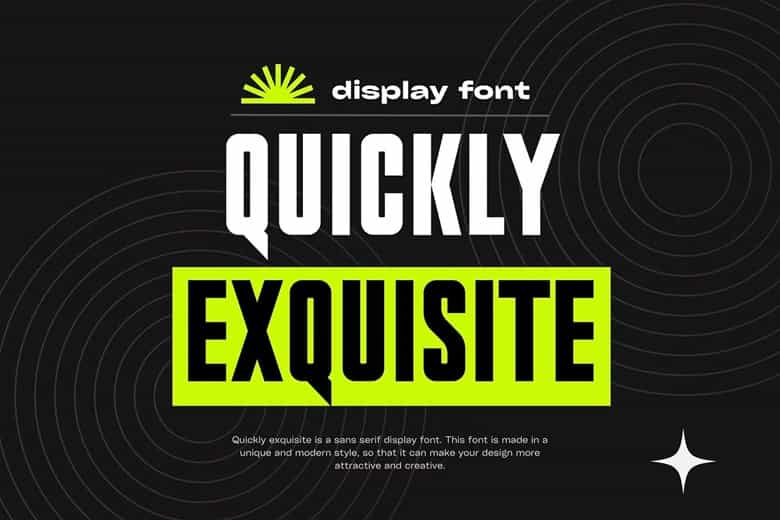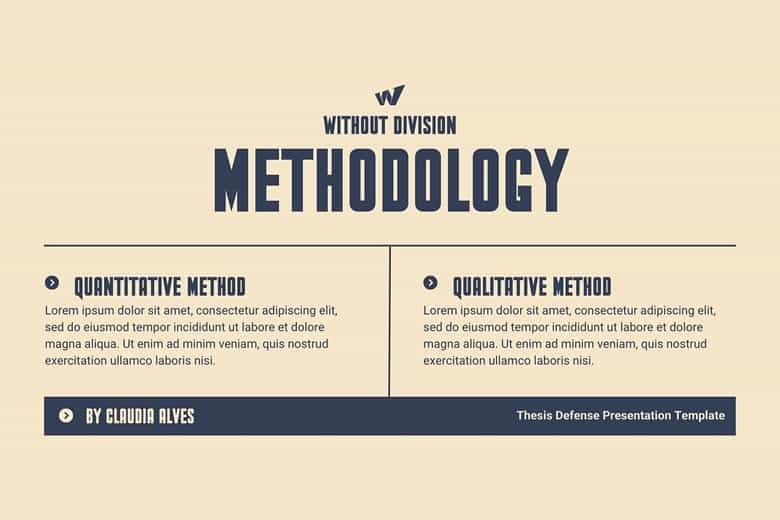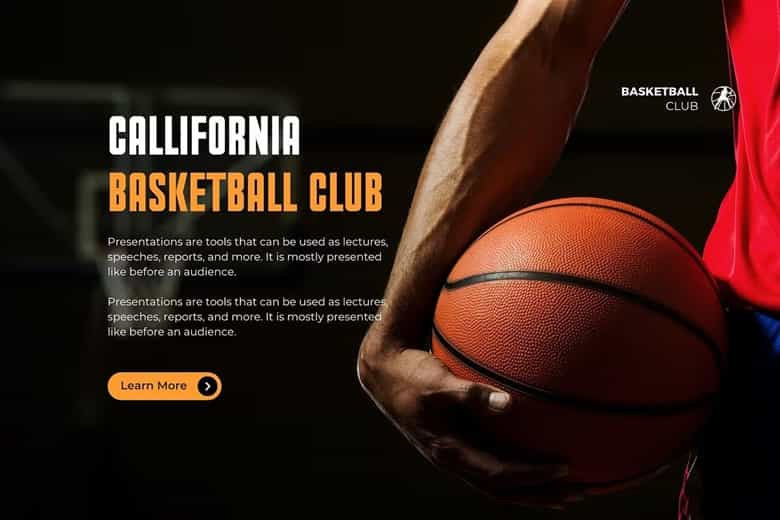
Discover Quickly Exquisite Font, part of the Sans Serif Display collection—a versatile and unique font perfect for adding a personal touch to your projects. Download it for free and enjoy crafting designs with style, from invitations to social media posts. This font is available exclusively for personal use, giving you the freedom to create without limits. Unlock your creativity with Quickly Exquisite Font today!
Quickly Exquisite Display Sans Serif font is for creating minimalistic logo, suitable for designing templates, brochures, videos, advertising branding, logos, invitations, layouts, elegant crafting, beauty design, and more..